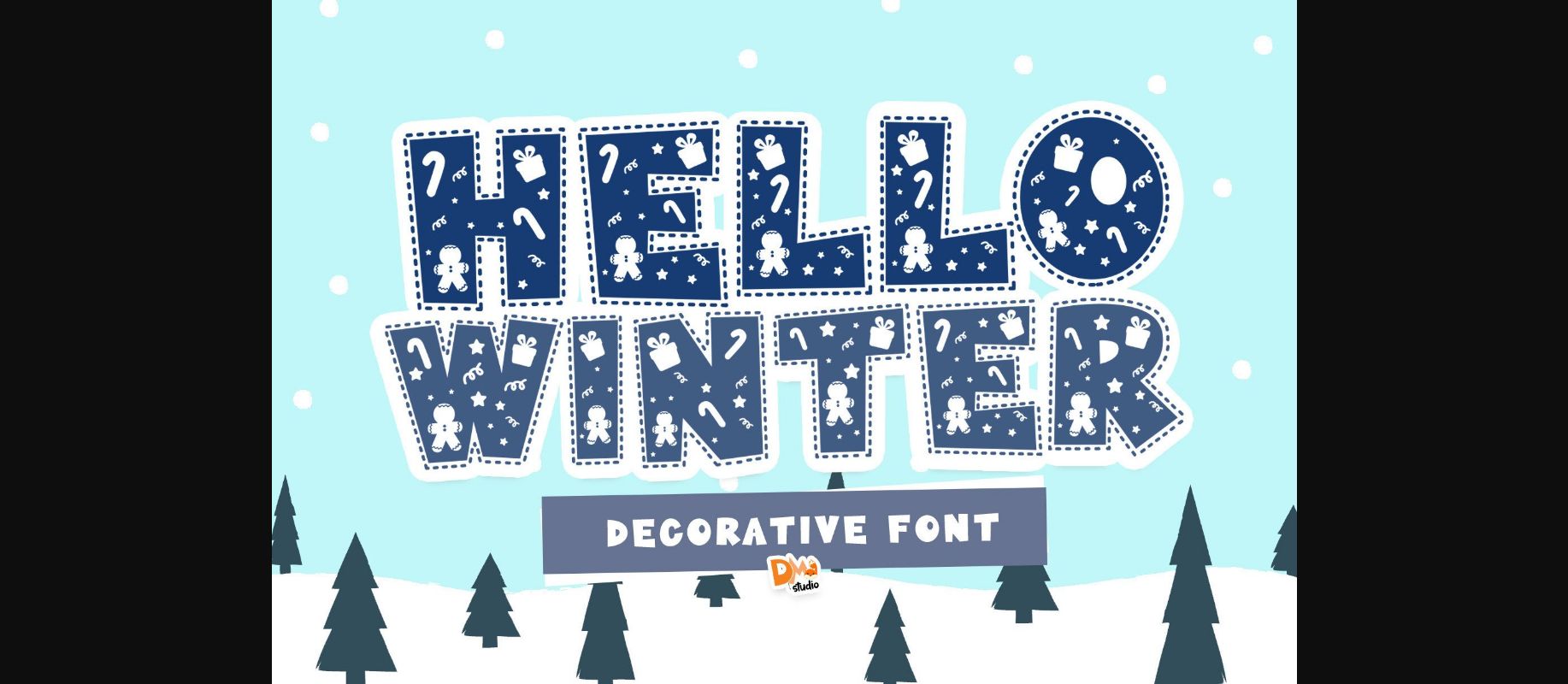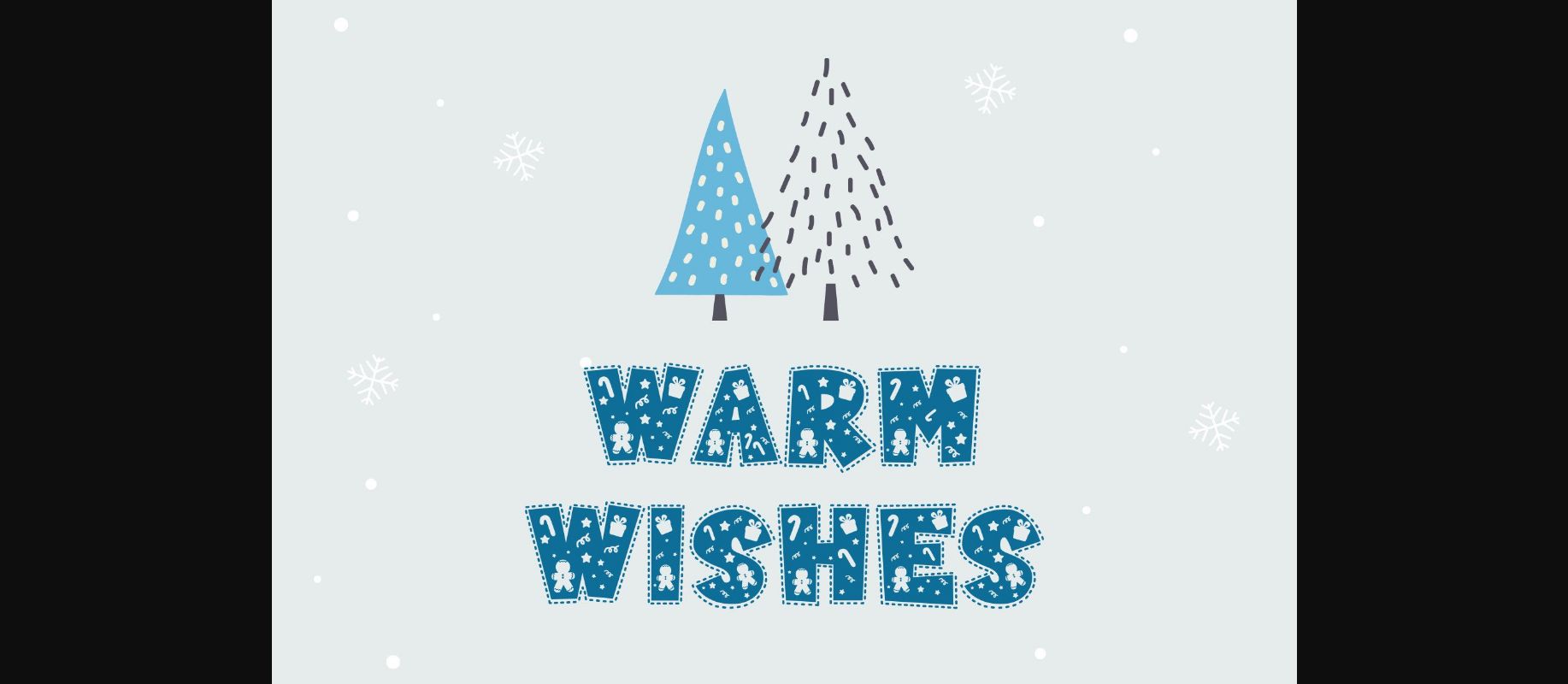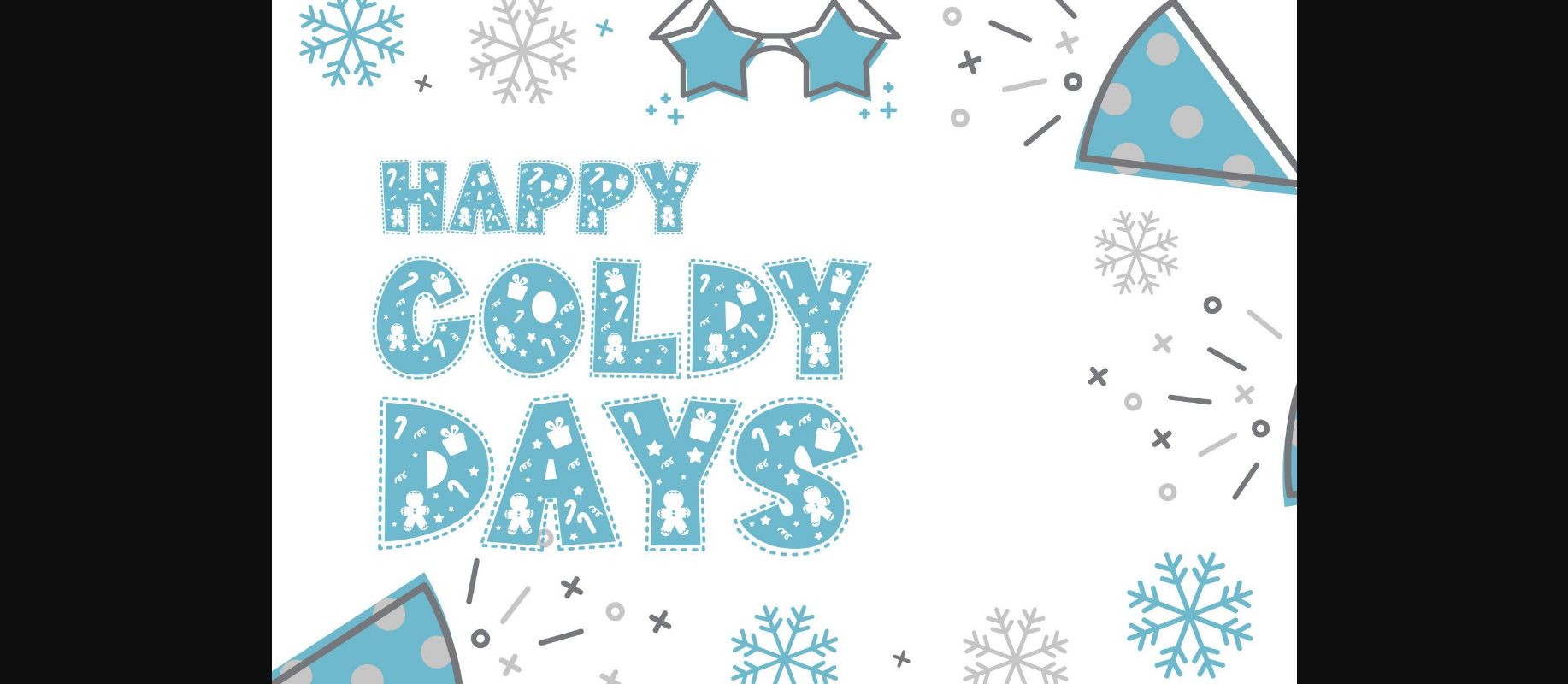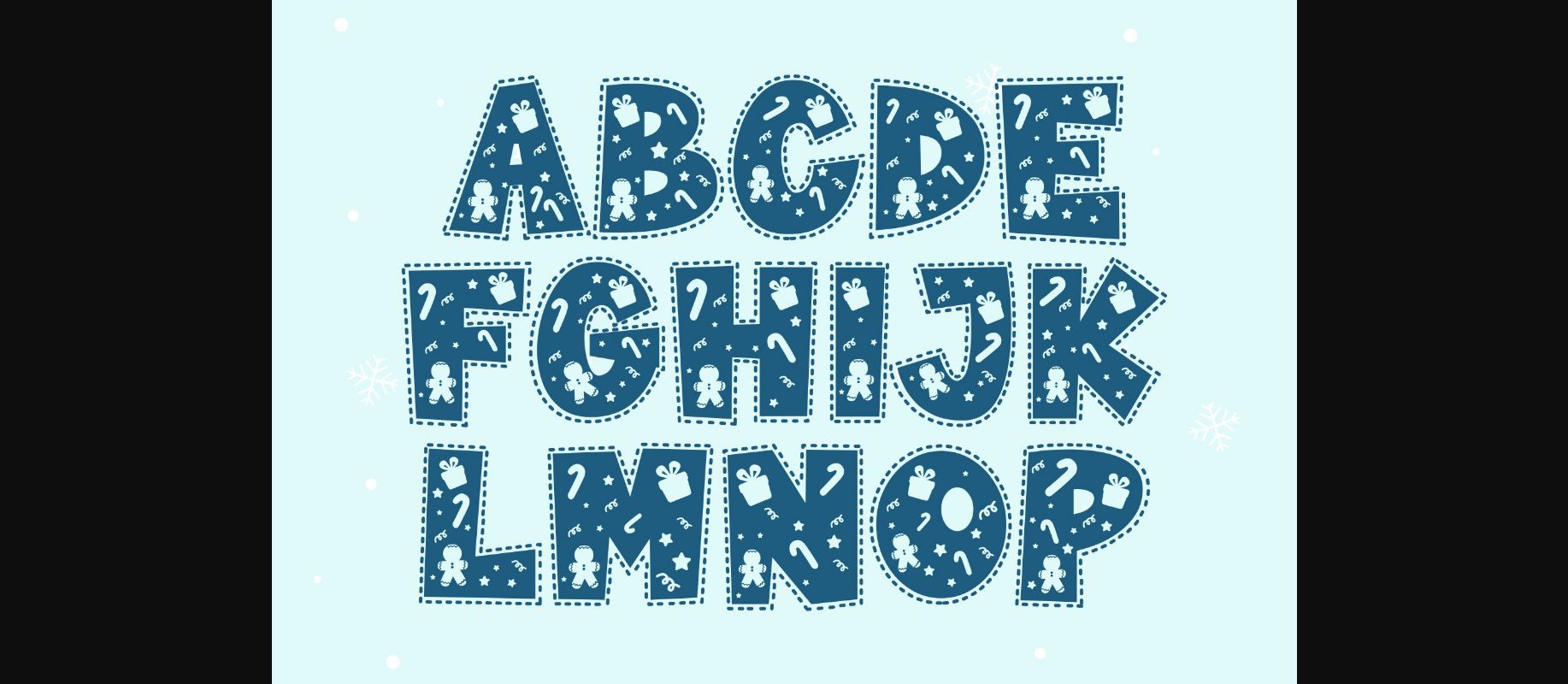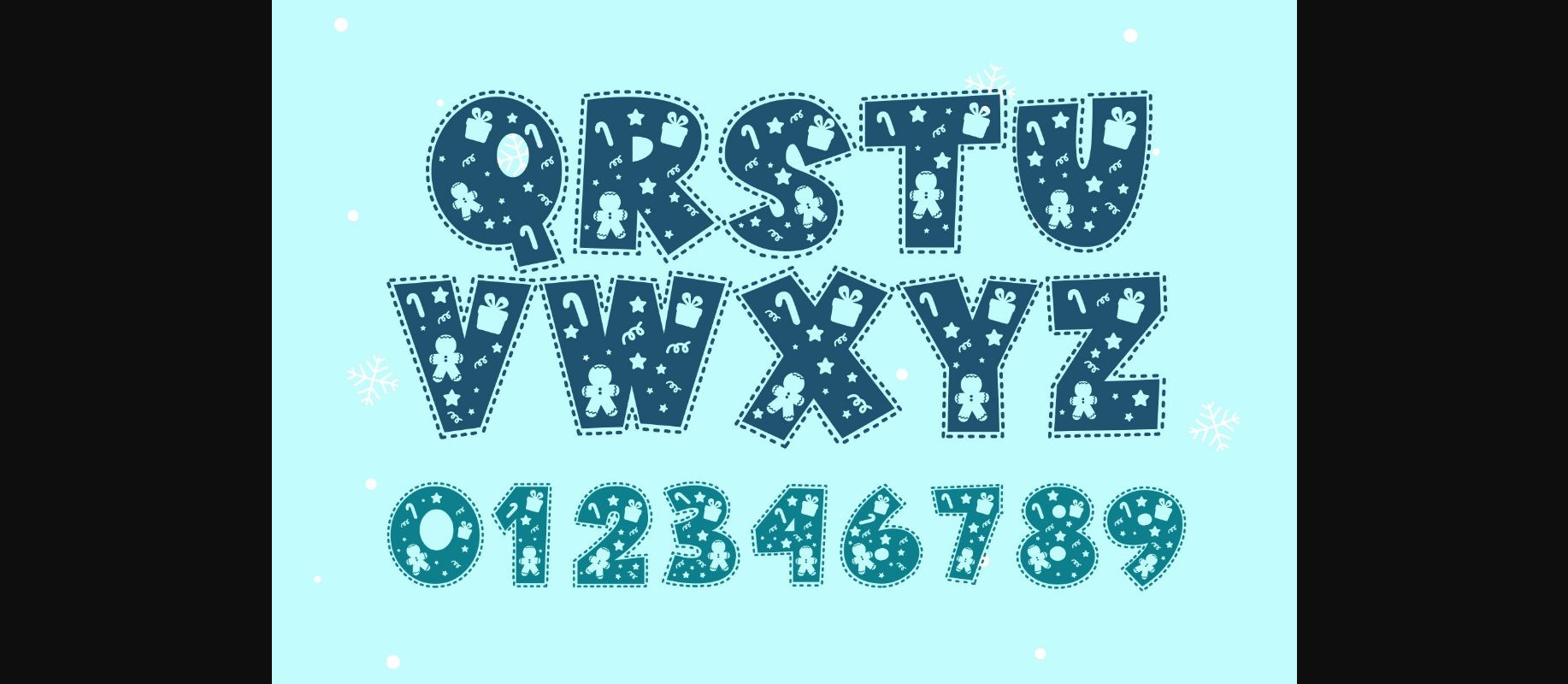
Hello Winter Font
About Hello Winter Font
Hello Winter is a decorative font with winter vibes.
Cute and lovely, it will make your crafts and design more cute and awesome.
Combine with your lovely assets and this is a great font for your collection.